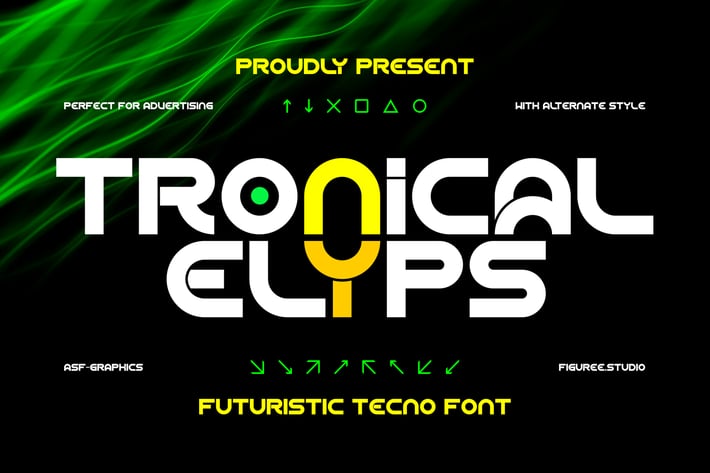
Tronical Elyps - Futuristic Tecno Font
Introducing Tronical Elyps โ the Futuristic Techno Font that propels your designs into the future. Perfect for projects that demand a sleek and cutting-edge aesthetic, Tronical Elyps combines clean lines and modern style to create a font that is both innovative and captivating.
๐ฎ Futuristic Elegance: Tronical Elyps brings a sophisticated, futuristic touch to your designs. Its sleek, streamlined letterforms exude a sense of innovation and modernity, making it ideal for any project that requires a forward-thinking and stylish look.
๐ก Tech-Inspired Precision: With its precise and geometric design, Tronical Elyps captures attention. The fontโs clean and structured letterforms ensure your text stands out, making it perfect for headlines, posters, and branding that require a sharp and contemporary statement.
๐ Sci-Fi Aesthetics: Whether you're designing for technology, sci-fi, or futuristic-themed projects, Tronical Elyps adapts effortlessly. Its tech-inspired style makes it suitable for a wide range of applications, adding a sleek and modern vibe to your work.
โจ Striking Visual Impact: Tronical Elypsโ bold and crisp look captures the essence of futuristic design. The font's distinctive character ensures your message is conveyed with maximum clarity and impact, leaving a lasting impression on your audience.
๐ Versatile for Various Projects: From websites and apps to digital graphics and product packaging, Tronical Elyps excels in any context. Its futuristic techno aesthetic enhances your designs, making them resonate with the spirit of innovation and modernity.
Step into the future with Tronical Elyps โ the Futuristic Techno Font that elevates your designs. Perfect for adding a sleek and dynamic touch to any project, Tronical Elyps is your go-to font for creating sharp and captivating text that truly stands out.